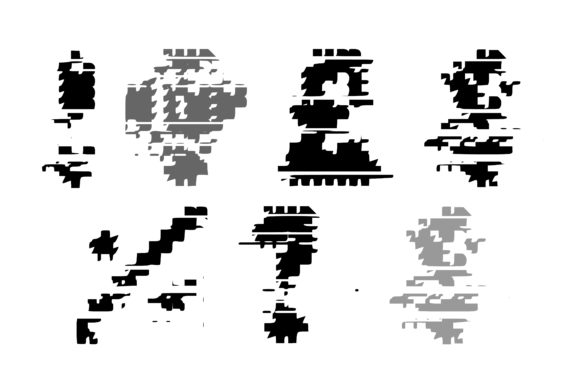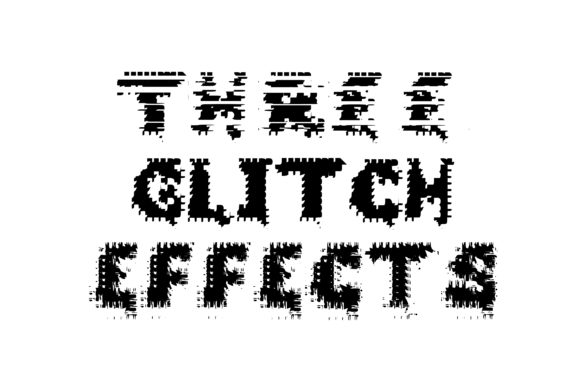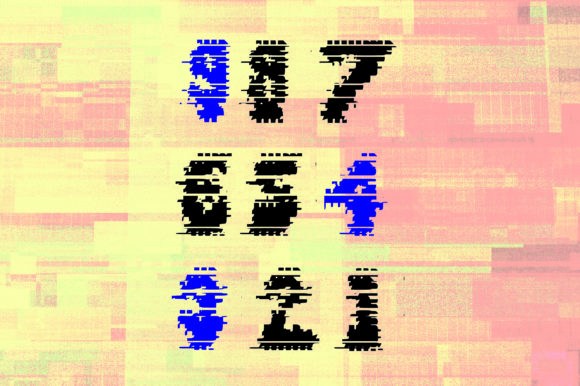
The Perfect Distortion: Unlocking the Power of Glitch Jack Family Font
Have you ever stared at a blank screen, struggling to find the perfect font to bring your design to life? The frustration is real, but what if I told you that there’s a font that can distort your expectations and push the boundaries of creativity? For designers seeking a unique digital aesthetic, the Glitch Jack Family Font is the game-changer you’ve been waiting for.
Glitch Jack Family Font is a display font family that embodies the spirit of digital experimentation. Its bold, futuristic characters are inspired by the quirks of digital technology, making it the perfect choice for any design project that needs a distinct technological and sci-fi feel. Whether you’re working on a futuristic sci-fi movie poster, a cyberpunk-themed video game, or a cutting-edge tech startup’s branding, Glitch Jack Family Font has got you covered.
Key Features of Glitch Jack Family Font
- Font Style: The Glitch Jack Family Font is a distressed, glitch-inspired sans-serif font with a unique blend of digital and analog elements.
- Character Set: The font includes a comprehensive character set, including Latin, Cyrillic, and Greek alphabets, as well as punctuation and special characters.
- Size: The font is available in 6 weights, ranging from Thin to Black, allowing for versatility in design applications.
- Unique Characteristics: The Glitch Jack Family Font features a distinctive glitch effect, with distorted and pixelated elements that give it a retro-futuristic feel.
Glitch Jack Family Font Review
I recently had the chance to work with the Glitch Jack Family Font, and I must say it’s an interesting choice for designers looking for something unique. ✨ The font’s distressed, glitchy aesthetic is perfect for creating a futuristic or cyberpunk vibe, and it’s great for adding some visual interest to digital projects.
- ✨ The font is highly customizable, with a range of weights and styles to choose from.
- ✨ The glitchy texture adds a lot of depth and visual interest to text.
- ✨ The font is great for creating a sense of nostalgia or retro-futurism.
However, there are a few limitations to consider. ⚠️ The font can be a bit difficult to read, especially at small sizes, due to the distressed texture. Additionally, the font may not be suitable for projects where readability is a top priority.
Overall, I think the Glitch Jack Family Font is a great choice for designers who want to add some visual interest to their projects. While it may not be suitable for every project, it’s a great option for those looking for a unique, futuristic aesthetic.
The Glitch Jack Family Font is ideal for:
- Retro-themed designs and graphics.
- Video game-inspired art and graphics.
- Electronic music festival and concert designs.
- Distressed or worn-out text effects.